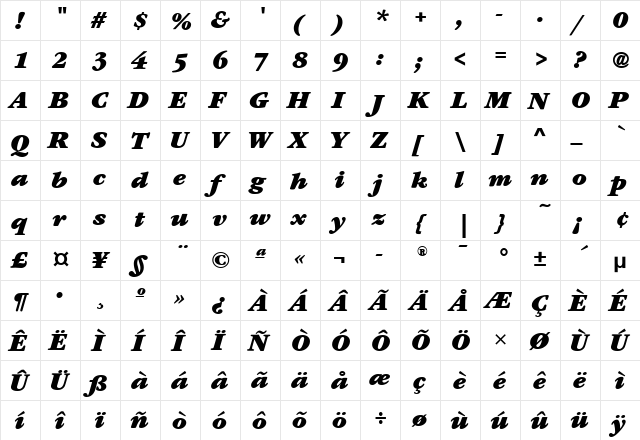
GaramondITC Ultra Italic
Design Context for GaramondITC Typeface
GaramondITC takes a measured approach to typography — its balanced proportions and neutral character make it a reliable workhorse for both digital and print work. The dynamic lean of this cut emphasises speed and emphasis in any layout.
Pro Tip: Try GaramondITC for annotation and caption copy alongside an upright companion — the contrast in angle creates a dynamic but ordered typographic system.